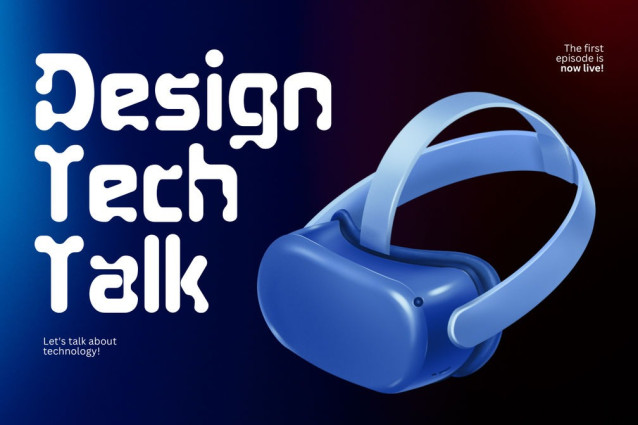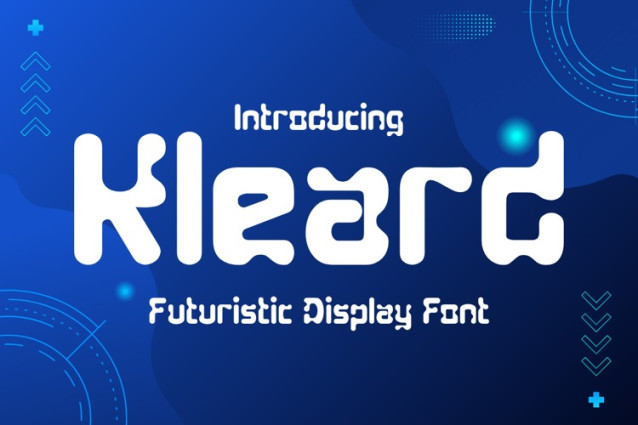
Kleard Font
Kleard Font is a futuristic display font designed with a bold, clean, and forward-thinking aesthetic. Its sharp geometry and modern letterforms create a strong technological feel, making it perfect for sci-fi themes, digital branding, gaming titles, posters, and futuristic UI designs. With its confident presence and sleek structure, Kleard delivers a powerful visual impact that feels innovative, modern, and ready for the future.